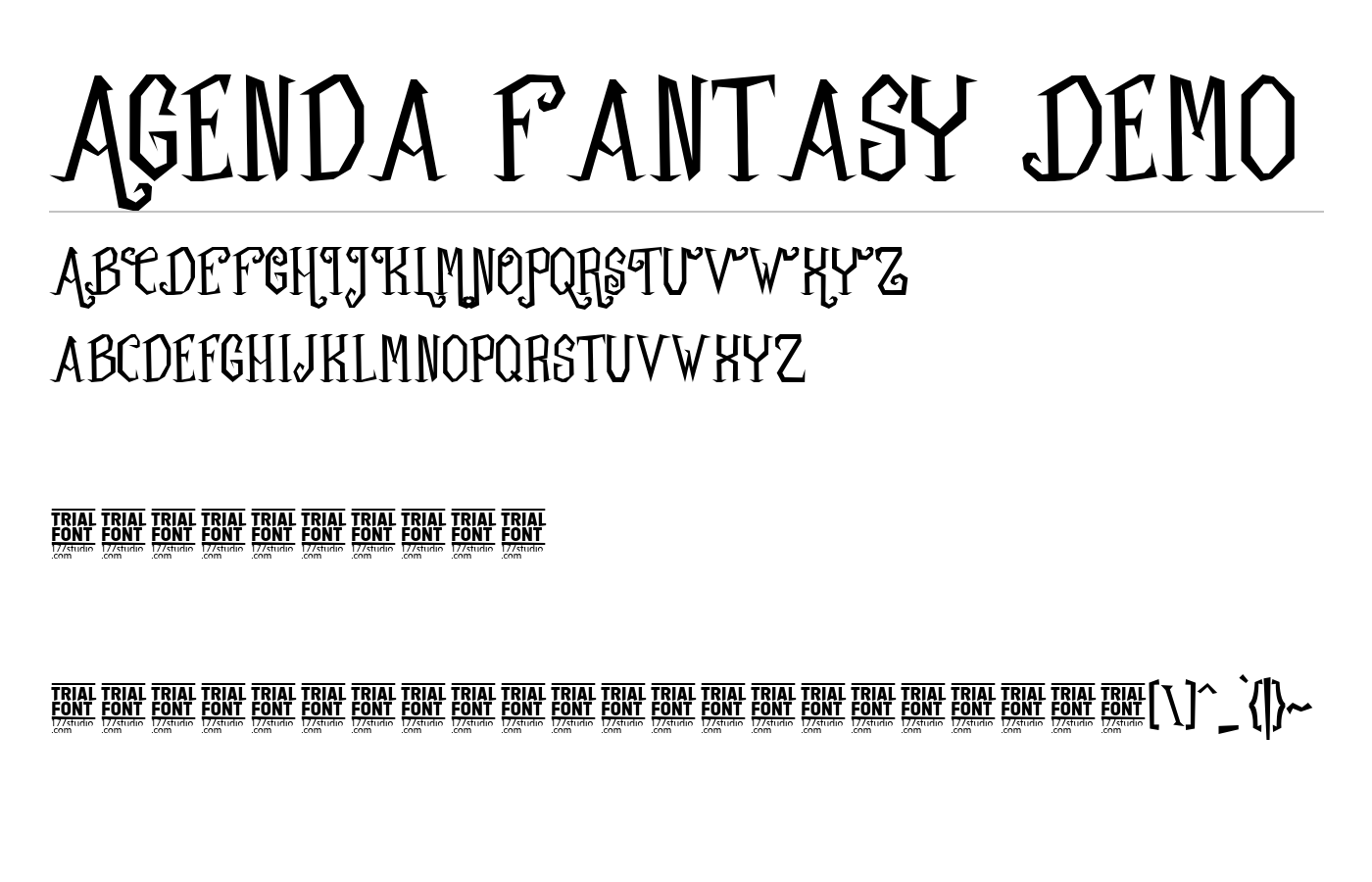
Agenda Fantasy Demo is a bold, decorative serif font with a quirky, angular design that gives it a dramatic and playful appearance. Its tall, narrow letterforms with sharp serifs and whimsical curls make it perfect for fantasy-themed projects, eye-catching headlines, or creative branding that seeks a unique, adventurous vibe. This font works best in large sizes where its intricate details and lively character can shine.
Agenda Fantasy Demo Font
About Agenda Fantasy Demo Font